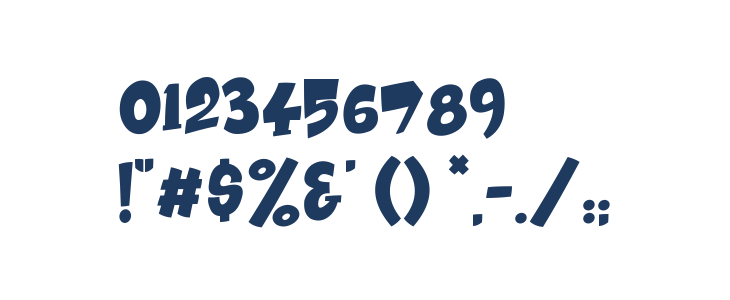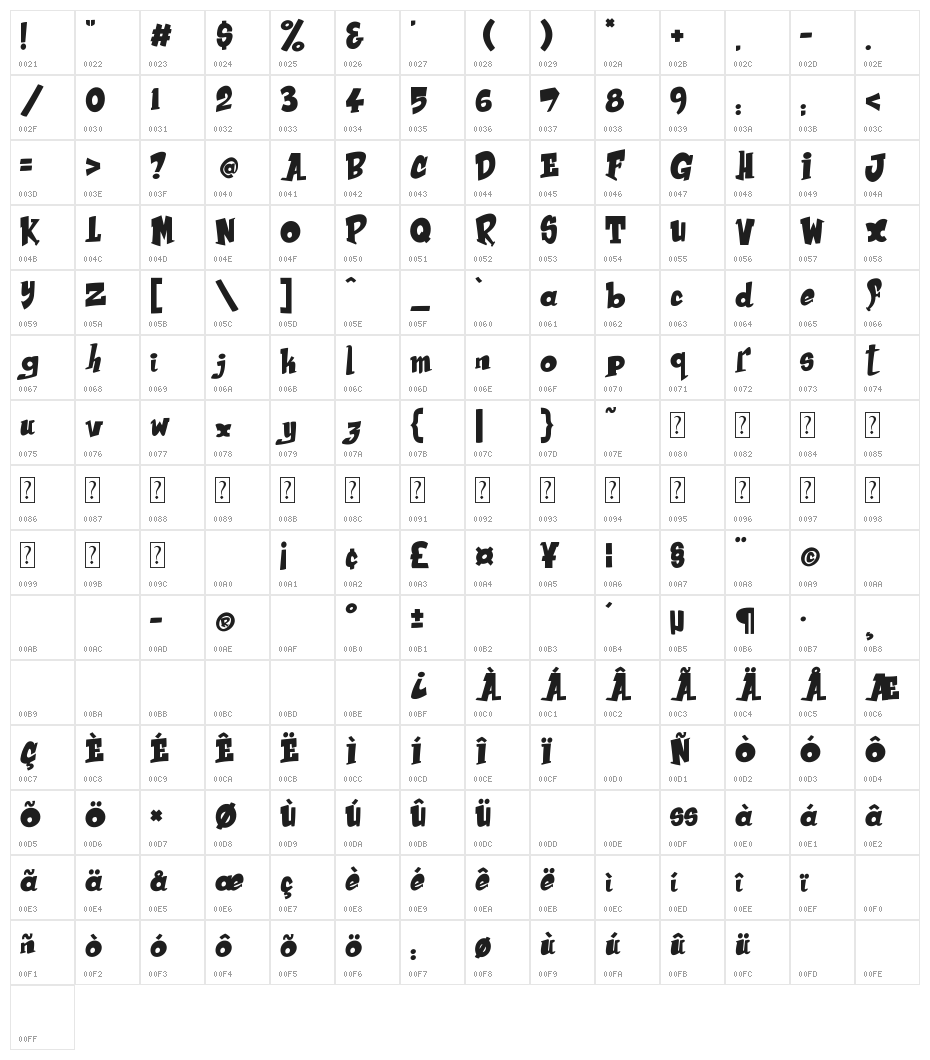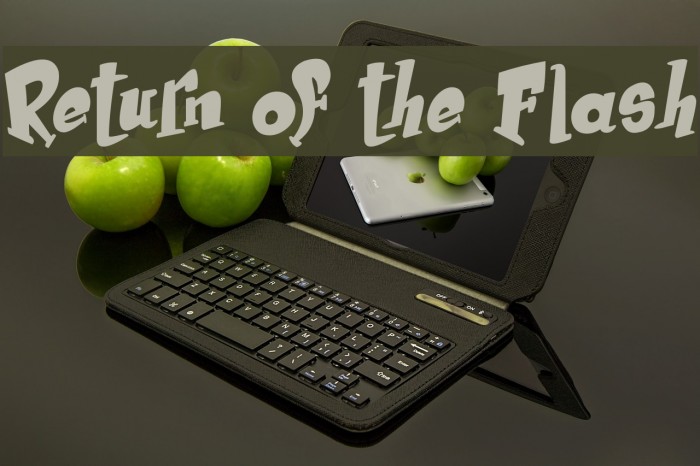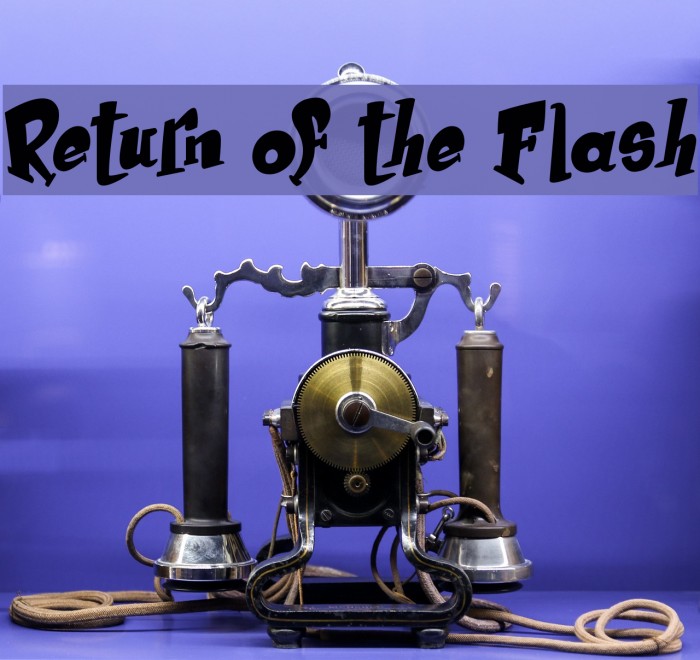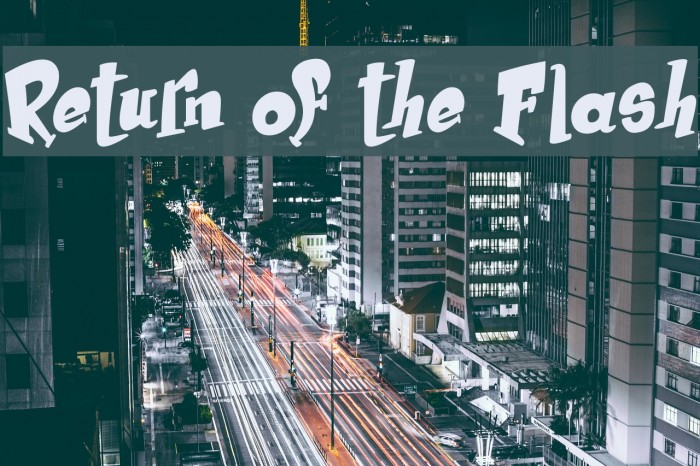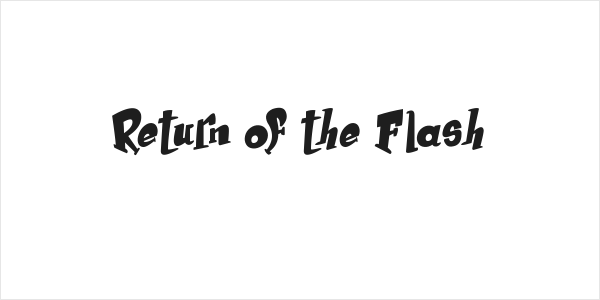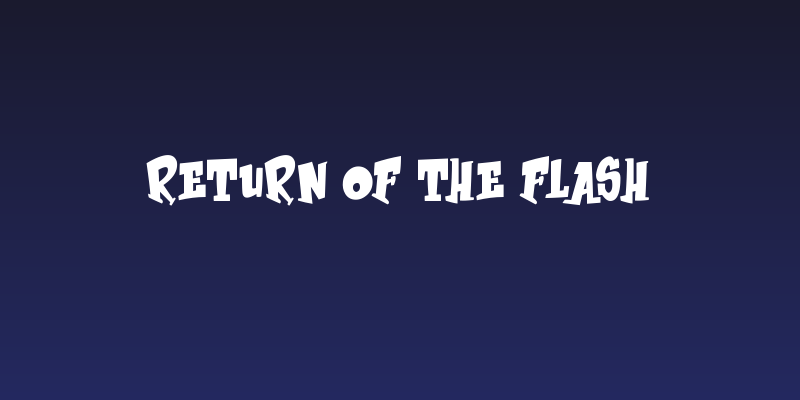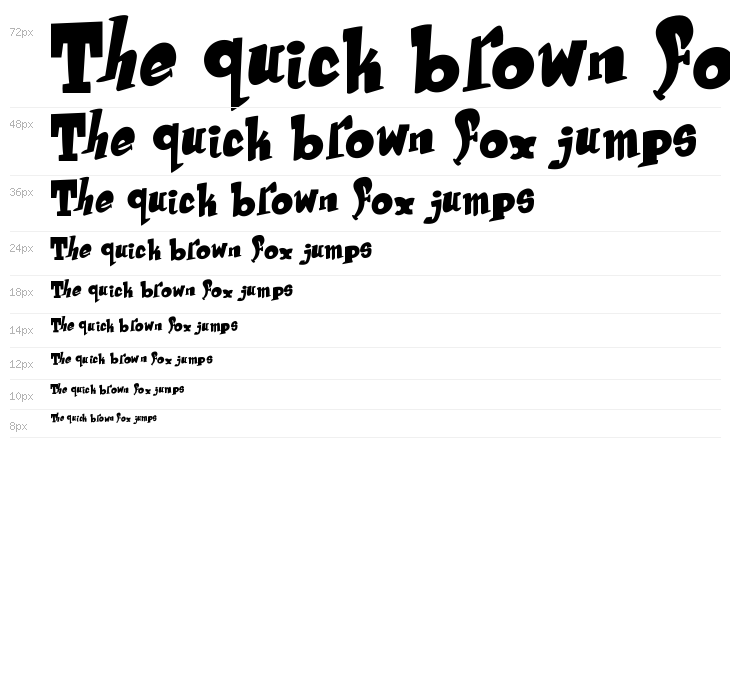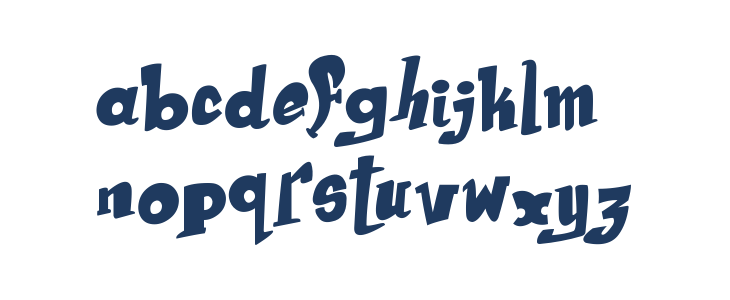
Return of the Flash Font
Return of the Flash Description
This font features a bold and dynamic style with a playful and energetic appearance. The letters are characterized by their exaggerated curves and varying stroke widths, giving them a lively and whimsical feel. The uppercase letters are particularly striking, with a strong presence and unique shapes that make them stand out. The lowercase letters maintain the same playful aesthetic, with some characters having distinctive flourishes. The numerals are bold and consistent with the overall style, ensuring readability while maintaining the font's unique character. Special characters are creatively designed, adding to the font's overall charm and versatility.
| Overall Style | Playful, Energetic |
| Proposed Projects | Ideal for children's books, comic strips, playful branding, and eye-catching posters. |